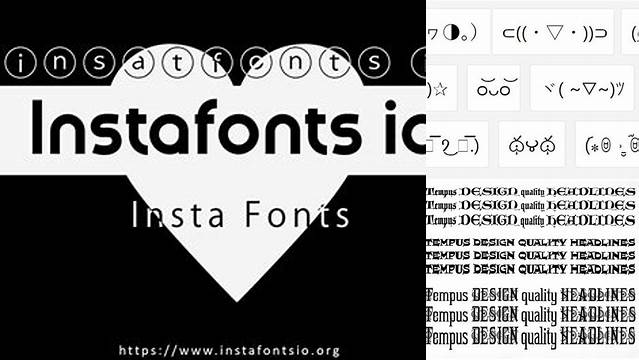
Instafonts.io & Telegram: Font Magic!
Hey everyone, are you looking to spice up your Telegram chats with some cool and unique fonts? Well, you've come to the right place! Today, we're diving deep into Instafonts.io, a fantastic online tool that lets you generate all sorts of fancy text styles. We'll explore how you can use it to create eye-catching messages on Telegram, with a special focus on the SymbolQ font.
Instafonts.io: What's the Buzz?
So, what exactly is Instafonts.io? Simply put, it's a free, user-friendly website that generates text in a wide variety of styles. Think of it as a font playground where you can transform your regular text into something special. The best part? It's super easy to use! You just type your text, and the site instantly generates different font options for you. You can then copy and paste your favorite styles wherever you want to use them, like in your Telegram chats, Instagram bios, or even your social media posts. The site offers a vast collection of font styles, from elegant cursive fonts to bold, attention-grabbing text. You'll find options for different occasions and styles, whether you're going for a classic look or something more modern and edgy. Using Instafonts.io is a breeze. The interface is clean and intuitive, making it accessible for users of all tech skill levels.
One of the main advantages of Instafonts.io is its versatility. You're not limited to just one or two styles. The site offers countless options, allowing you to find the perfect font that matches your mood or the message you want to convey. This is particularly useful for platforms like Telegram, where standing out from the crowd can make your messages more engaging. The generated fonts aren't just for show either; they're designed to be easily readable, even with the diverse range of styles available. This is crucial if you want your messages to be understood clearly. Instafonts.io helps you create a stronger impact with your text by adding visual appeal. The use of unique fonts can instantly capture the attention of your readers and make them more likely to engage with your content. It helps boost the aesthetic value of your messages, so your Telegram messages feel more personal and stylish, leaving a lasting impression on your audience. Imagine transforming a simple “hello” into an elaborately styled greeting that instantly grabs attention. With a vast selection of fonts, Instafonts.io provides tools to customize and personalize your communication. This tool enables you to express creativity in a world dominated by standard font styles, providing a unique style that allows you to stand out and establish a strong personal brand.
SymbolQ: A Closer Look
Now, let's zoom in on SymbolQ, one of the many cool fonts offered by Instafonts.io. This is a symbol-based font that's perfect for adding a touch of flair and creativity to your messages. SymbolQ offers a collection of unique symbols and characters, making it ideal for those who want to inject a dose of personality into their text. Unlike standard fonts, SymbolQ uses a combination of symbols and special characters to create visually distinct styles. The versatility of SymbolQ makes it perfect for a wide range of uses on Telegram. You can use it to create captivating usernames, add emphasis to key phrases in your messages, or just for a touch of fun. Using symbols can create a more memorable impression on your audience. It’s a playful way to communicate and grab the attention of your audience. When you use SymbolQ, you’re not just sending a text message; you're creating a visual experience. The symbols add depth and character to your words, making your messages pop and stand out from the regular texts that flood our screens every day.
Adding SymbolQ to your Telegram messages can be as simple as visiting Instafonts.io, typing your message, selecting the SymbolQ font, and copying the generated text. This seamless process makes it easy for anyone to use without any technical knowledge. The tool allows you to experiment with different symbol combinations to see what works best for you. This process enables the use of creativity and exploration, so that the audience can enhance the overall appeal of your communications. By leveraging the SymbolQ font, your messages will show off creativity and individuality. By integrating this tool, you transform your communication into an art form.